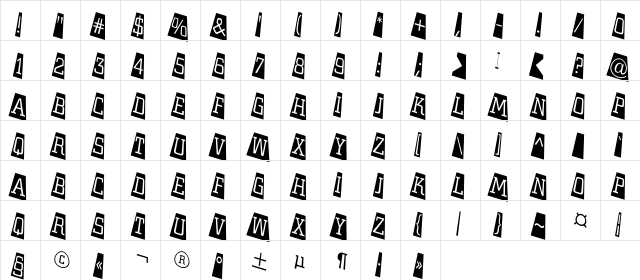
a_CityNovaTtlCmTwLt Regular
Design Context for a_CityNovaTtlCmTwLt Typeface
a_CityNovaTtlCmTwLt is a composed and adaptable typeface that performs quietly and consistently across a wide range of design contexts.